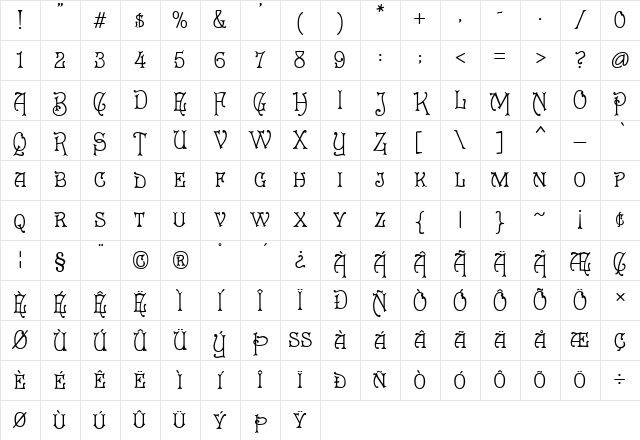
Cruickshank Regular Free Font
Cruickshank Regular
Design Context for Cruickshank
Cruickshank is a composed and adaptable typeface that performs quietly and consistently across a wide range of design contexts.